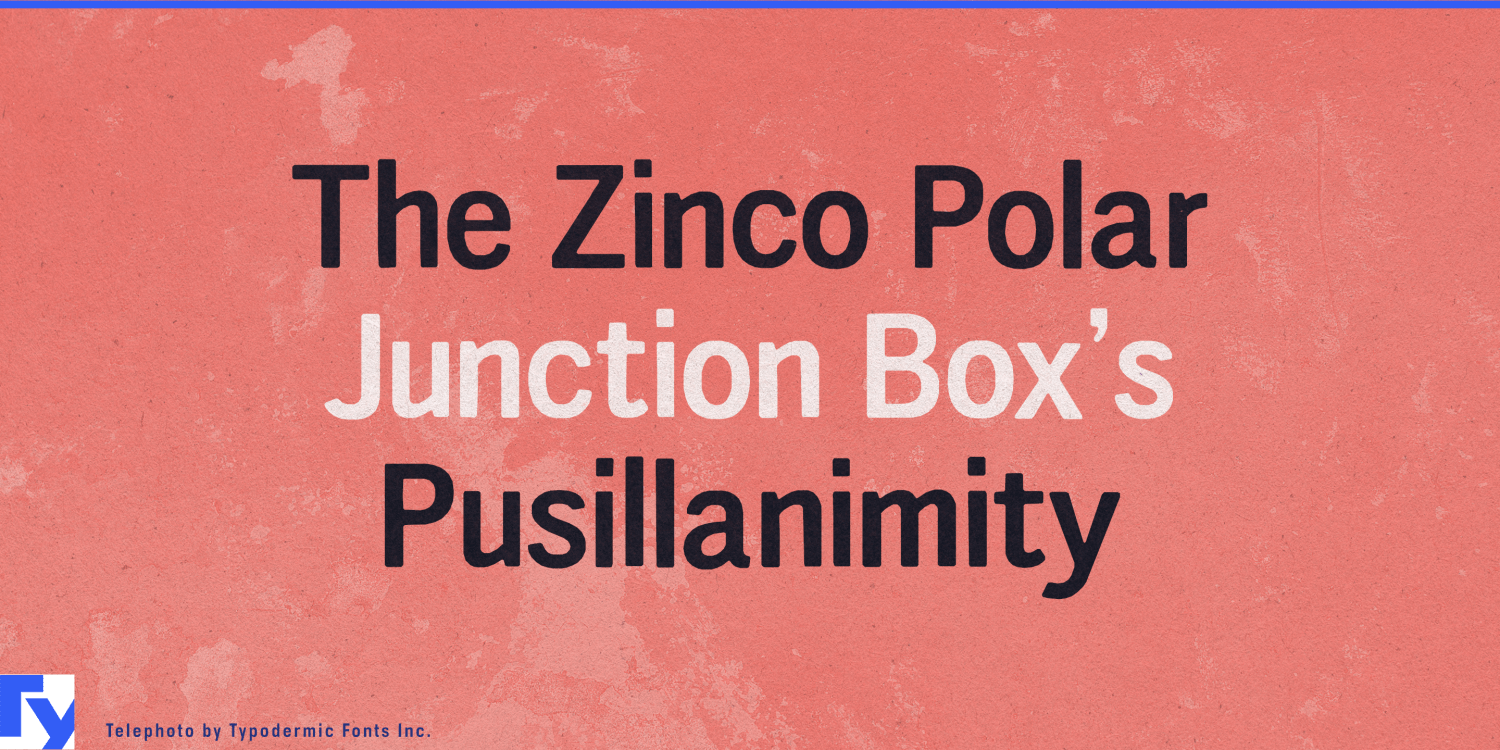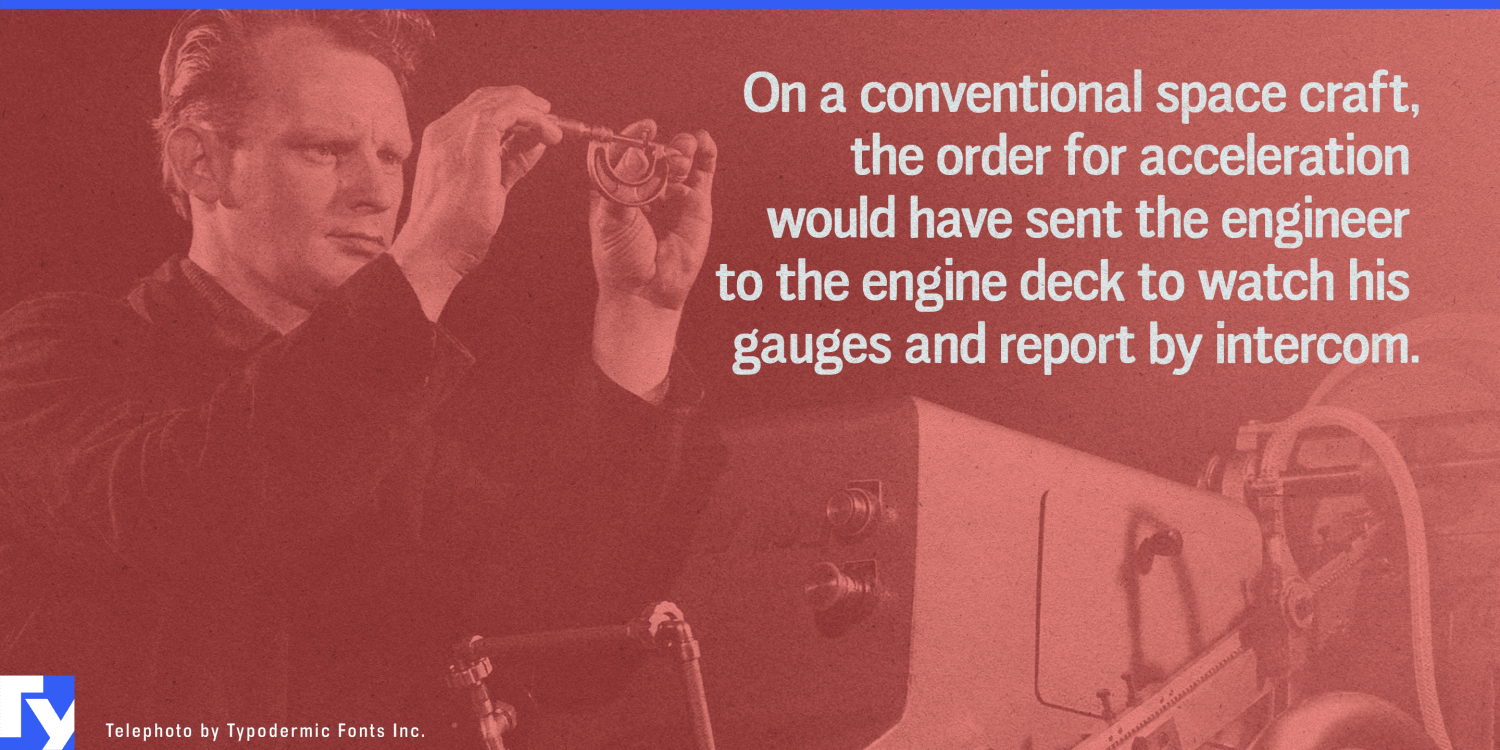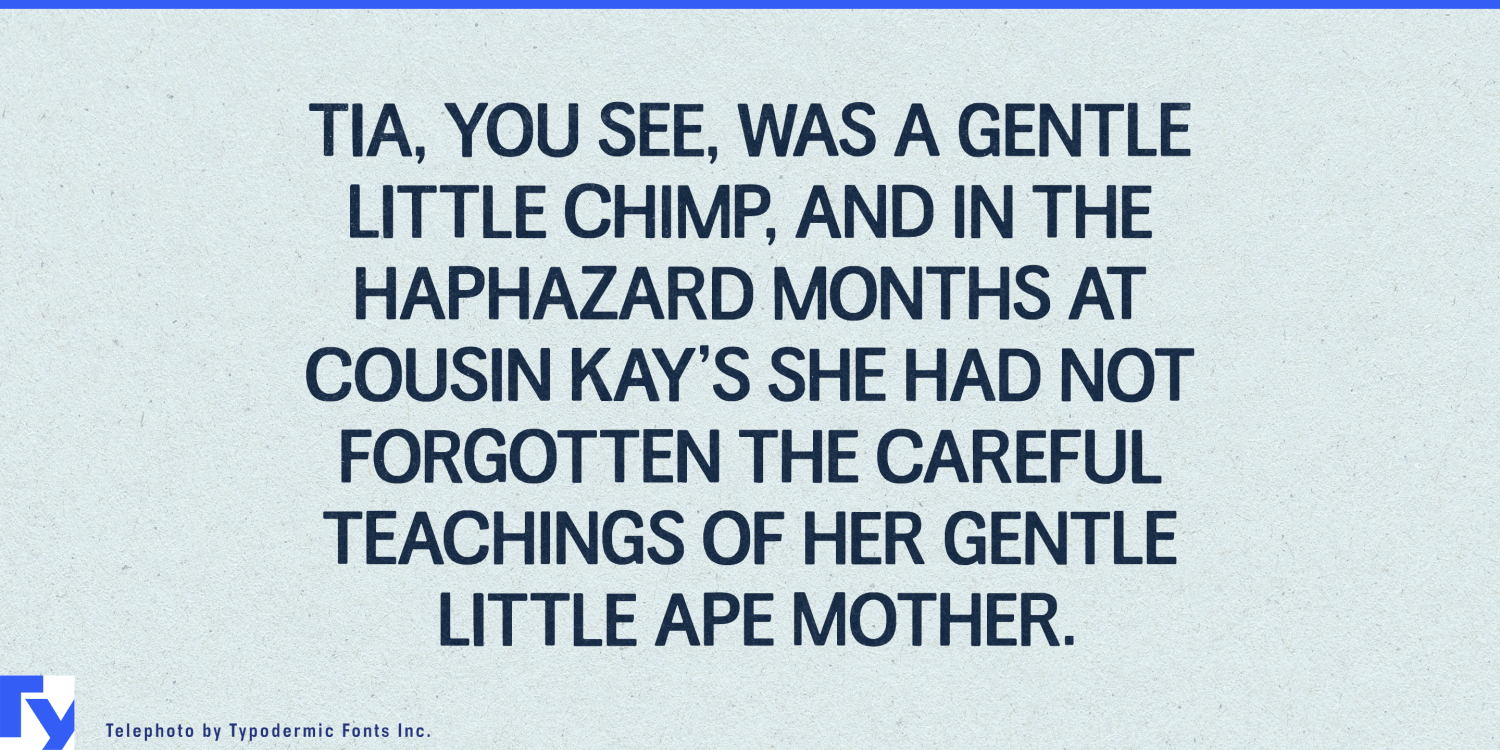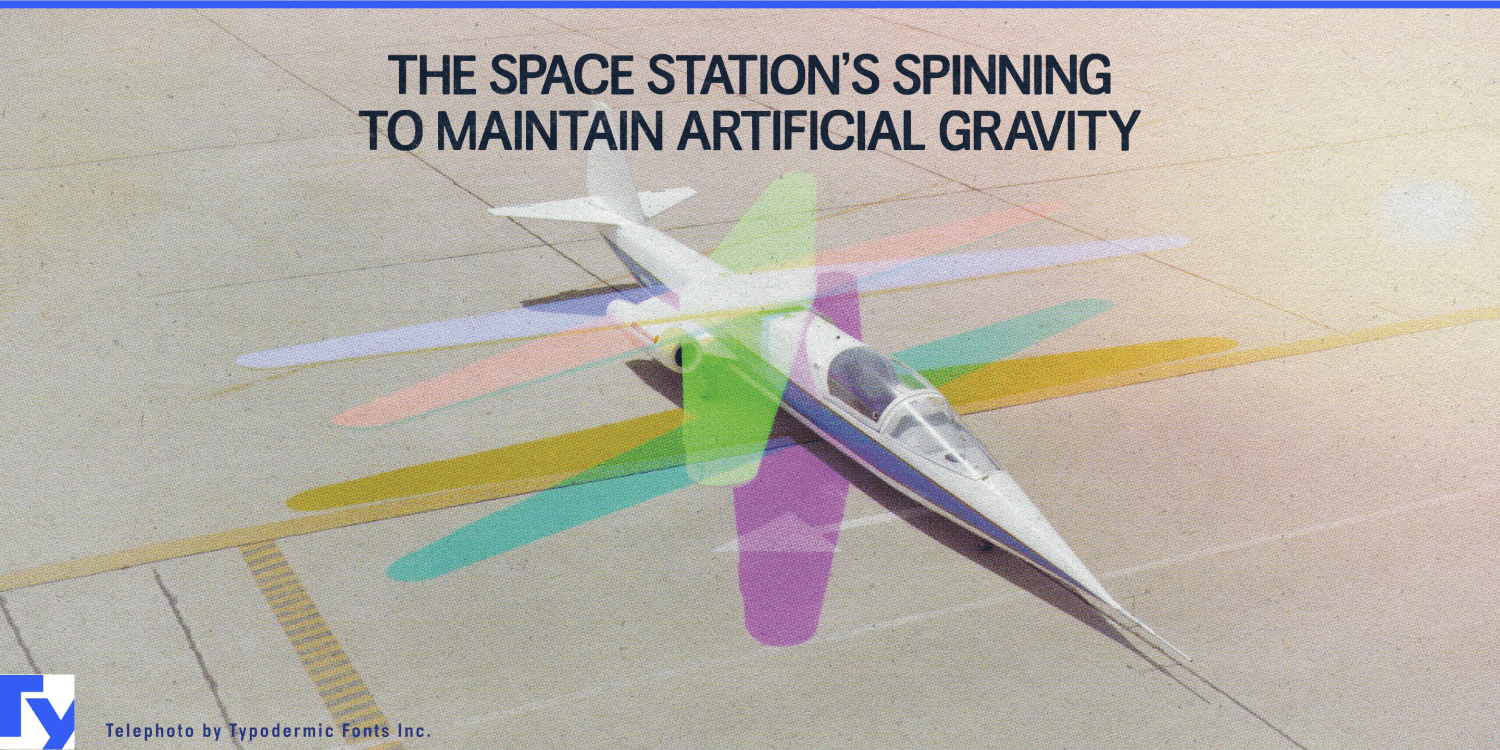
About Telephoto
Capture the essence of bygone eras with Telephoto—a sans-serif typeface that develops your designs with the warmth and character of analog charm. This is a time machine for your typography, transporting your projects back to when craftsmanship was…